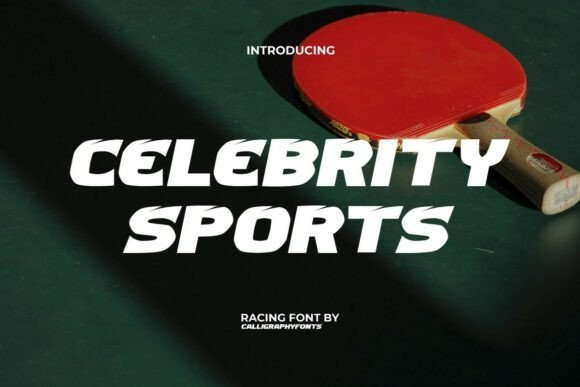
Get Ready to Rev Up Your Designs with the Celebrity Sports Font
Have you ever been at a sports stadium, surrounded by the roar of the crowd, and felt the rush of adrenaline as your favorite team scores a touchdown? That’s the kind of energy the Celebrity Sports Font is designed to capture.
Introducing the Celebrity Sports Font, an ultra-bold, powerfully slanted display sans-serif typeface that demands attention and conveys motion and high-energy competition. This racing-inspired font is perfect for creating impactful headlines, striking sports branding, and automotive graphics that need to stand out from the crowd. As a designer, you’ll appreciate the versatility and modern look of the Celebrity Sports Font, making it a valuable addition to your design toolkit.
Whether you’re working on a sports-themed project or need a font that makes a bold statement, the Celebrity Sports Font is your go-to solution. Its sharp, italicized look guarantees a dominant visual statement that’s sure to leave a lasting impression.
Celebrity Sports Font Key Features
- Font Family: Celebrity Sports Font is a unique, bold sans-serif font designed specifically for sports and entertainment branding.
- Character Set: Includes a wide range of characters, including uppercase and lowercase letters, numerals, punctuation marks, and special characters.
- Size and Resolution: Optimized for use at medium to large sizes (24-72 points) and high resolutions (300 DPI and above) to ensure maximum readability and impact.
- Unique Characteristics: Distinctive, bold lines and rounded corners give the font a modern and dynamic feel, perfect for sports and entertainment branding.
Celebrity Sports Font Review
At first glance, the Celebrity Sports Font is an intriguing addition to the world of sports fonts. The design is a mix of modern and classic elements, making it appealing to a wide range of audiences. ✨ The font’s bold and dynamic feel is perfect for sports-related branding and advertising.
- Unique design: The Celebrity Sports Font has a distinctive look that sets it apart from other sports fonts.
- High contrast: The font’s bold lines and sharp edges create a high-contrast design that’s easy to read, even at small sizes.
- Customizable: The font comes with a range of styles and weights, allowing designers to customize it to suit their needs.
However, there are some limitations to consider. ⚠️ The font’s unique design can be overwhelming at times, making it difficult to use for more subtle branding or advertising. Additionally, the font’s bold lines can make it challenging to use for text-heavy designs.
Overall, the Celebrity Sports Font is a solid addition to any designer’s toolkit. While it may not be the best choice for every project, it’s perfect for sports-related branding and advertising where a bold and dynamic look is desired.
The Celebrity Sports Font is ideal for sports-themed designs, such as sports team logos, jerseys, or promotional materials. It can also be used for event invitations, social media graphics, or any design that requires a bold and eye-catching font.